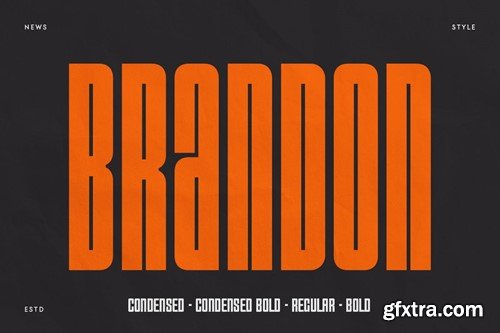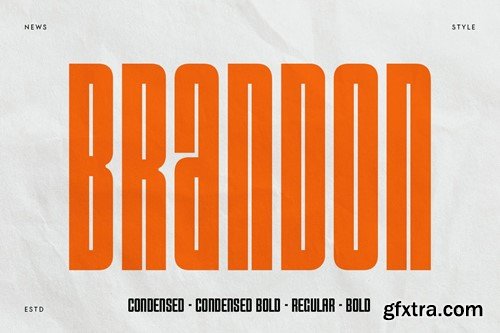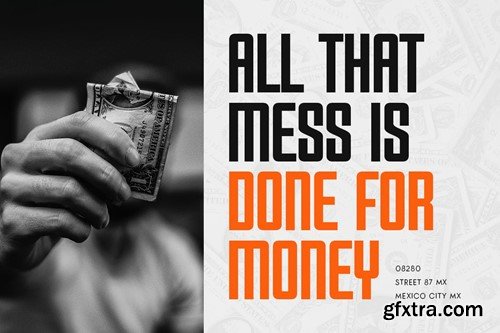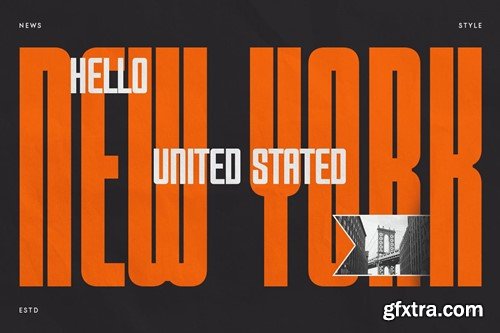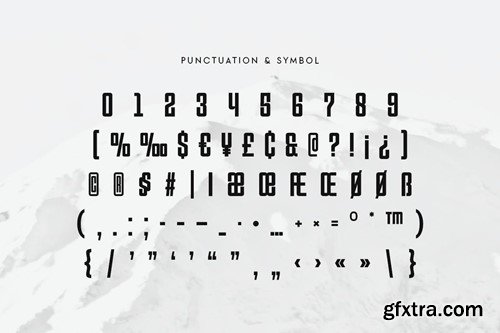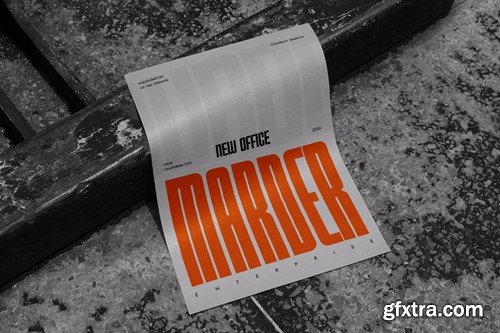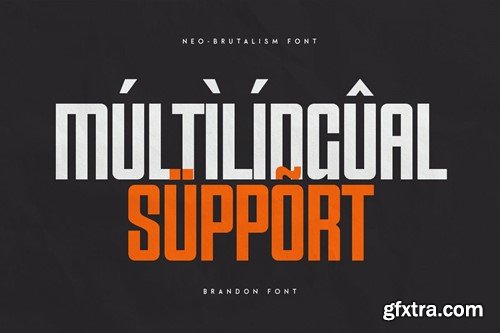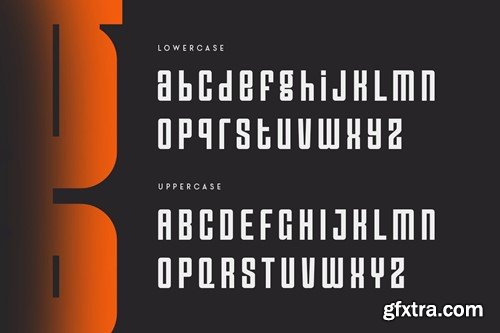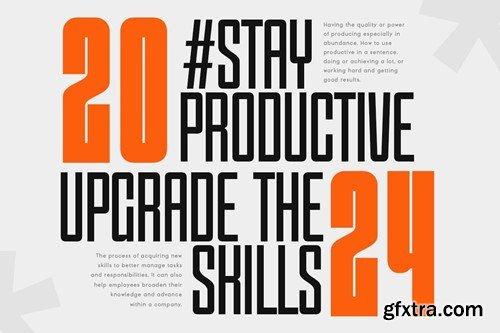
Brandon - 简化头条字体家族 CB9XCUM
Brandon - Condensed Headline Font Family CB9XCUM
Brandon - Condensed Headline Font Family
Brandon, an Unique Condensed Headline Font Family that we created special for Professional and Modern Headline needs that will give you more Unique look and more efficient in area, with 4 weights in unique shape will be ready to add value of your design. It so nice to leverage designer or product owner that need solutions to make their design look more Professional and modern. And specially for this font, We prepared 4 weights to help you create unlimited variations for your creative needs.
Brandon Condensed Headline Font Family ready with:
• 4 Weights inside
• Preview as a inspirations that you can do with Brandon font
• Ready with Lowercase and Uppercase characters